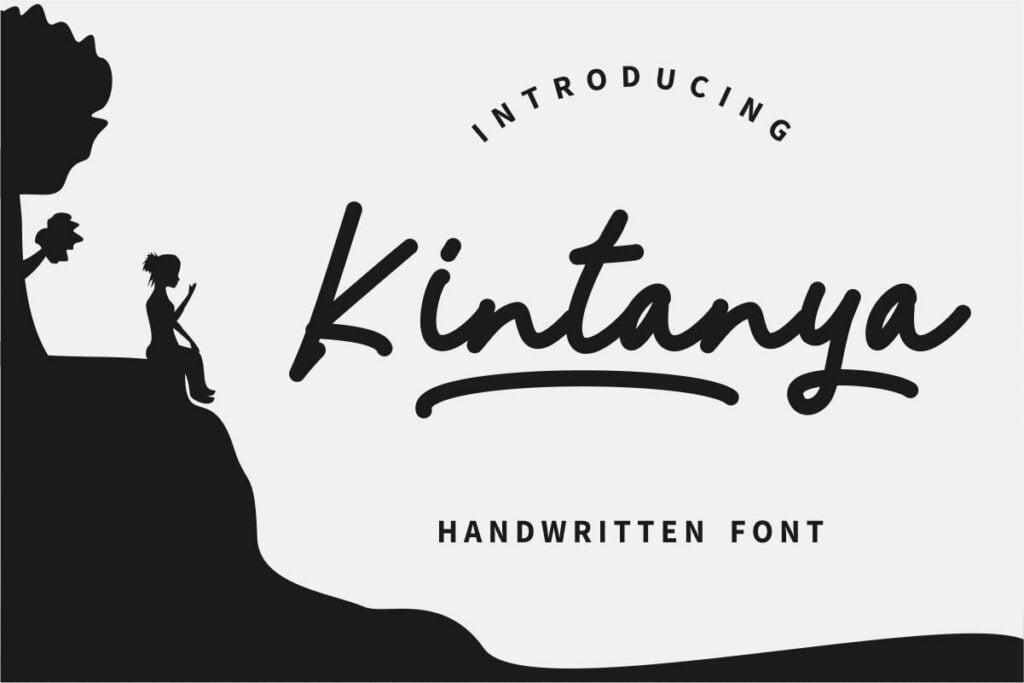
Kintanya Font
Kintanya is a unique and elegant handwritten font. It looks beautiful on a variety of designs requiring a personalized style, such as wedding invitations, thank you cards, logos and so on.
Kintanya Handwritten Font